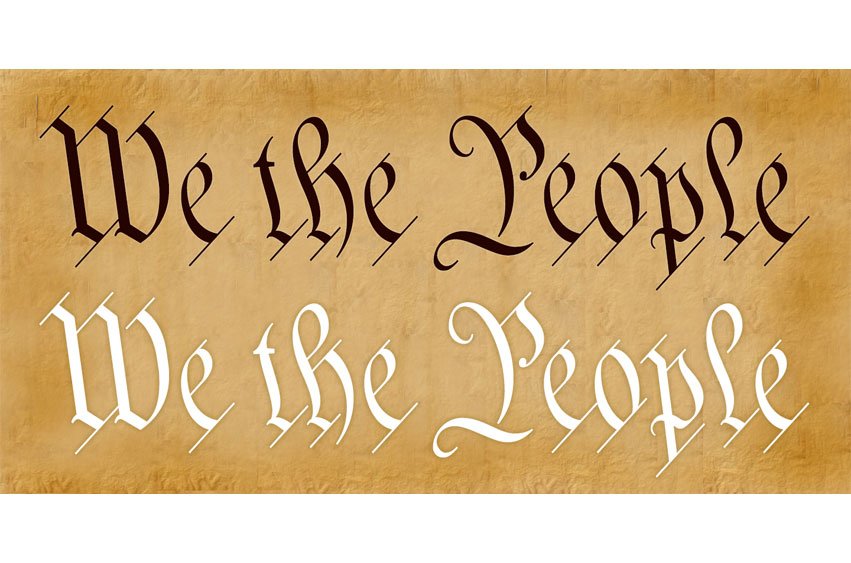
We The People Font was released as an album from United States music artist We The People Font in July 2005 and became immensely popular worldwide. This debut has brought in numerous designers and fans worldwide to support its cause. K-Type created the font used in creating the music album logo; its redesign took place in 2021 and has classic yet modern features, consisting of three distinct styles: Regular, Upright Regular and Upright bold.
Ideal for emblems, ebooks and social media posts among many other applications. Ideal for comic covers and animated logo designs. Also great for posters of movies and business cards for club names or shop names as well as shop, club logo designs. Banks also frequently utilize this font in their offices – as can card designers looking to design wedding invites with it! This font can help create official logos as well as cards such as wedding invites.
We The People Font Preview